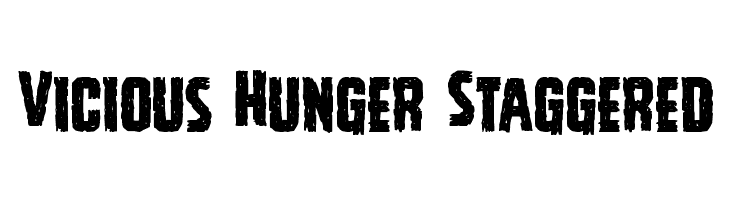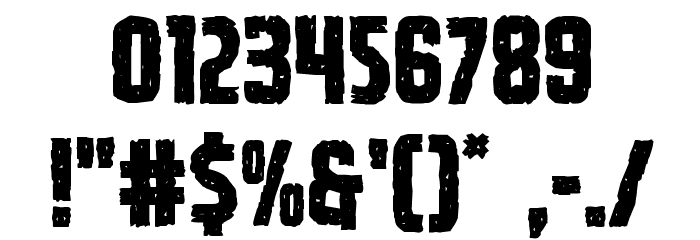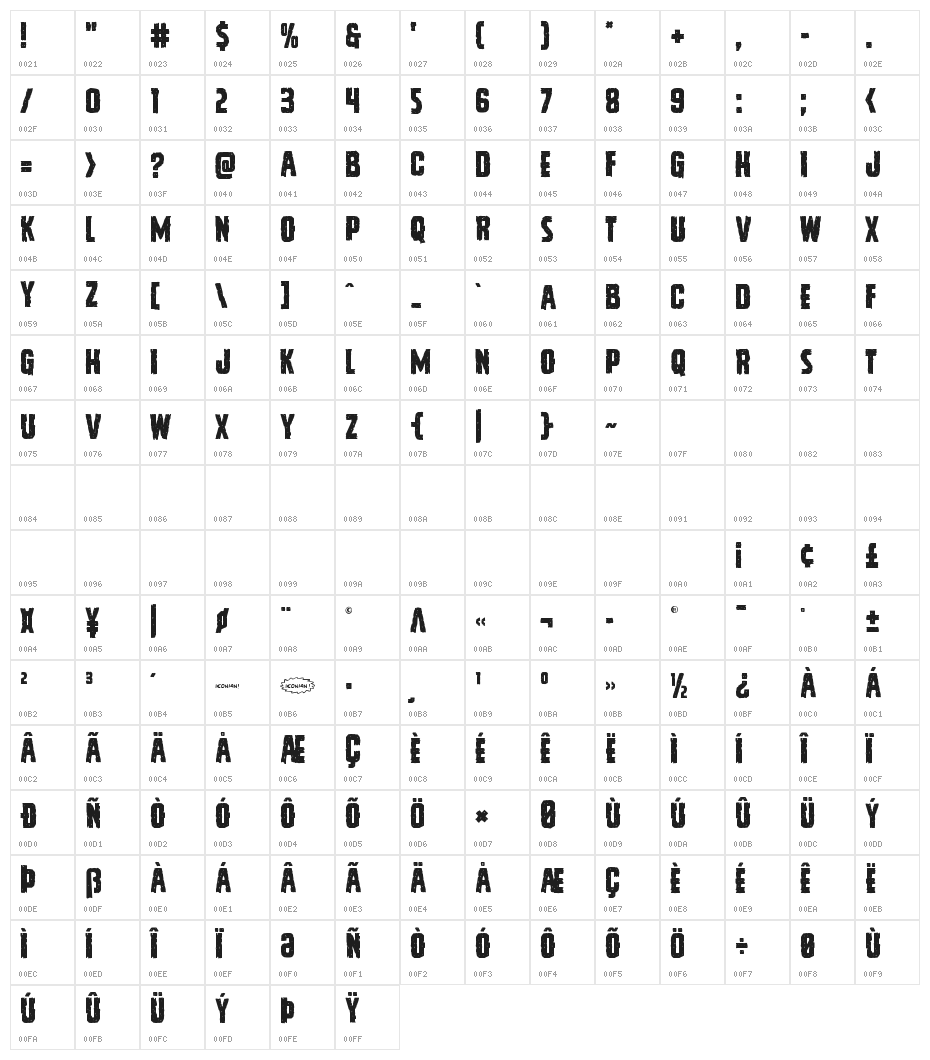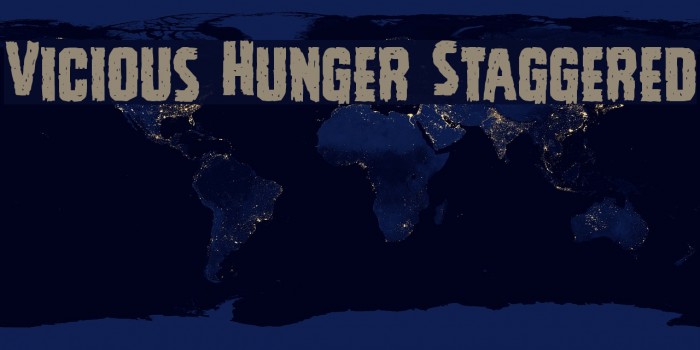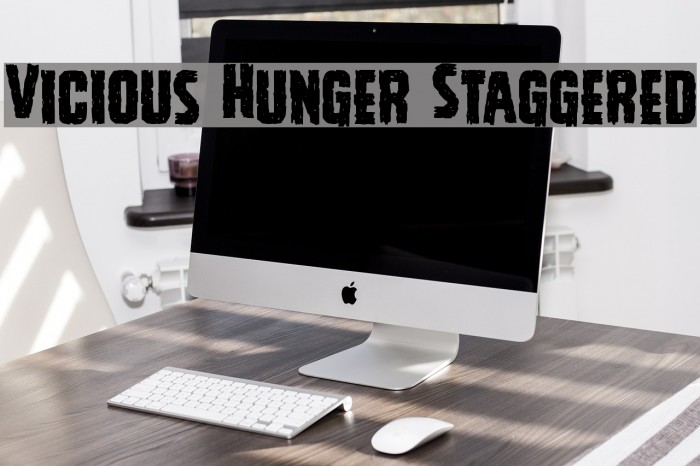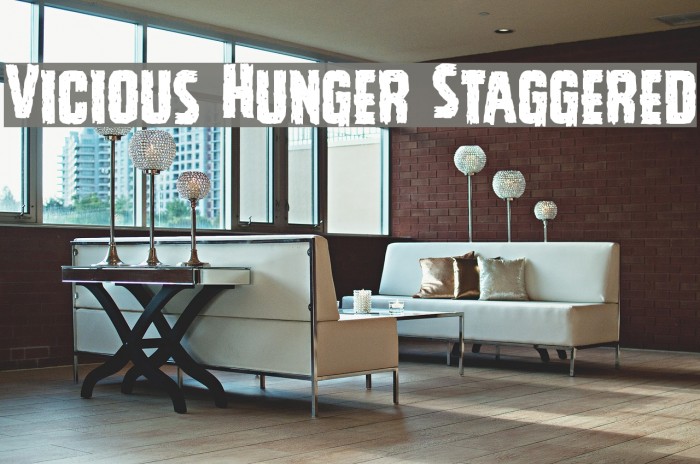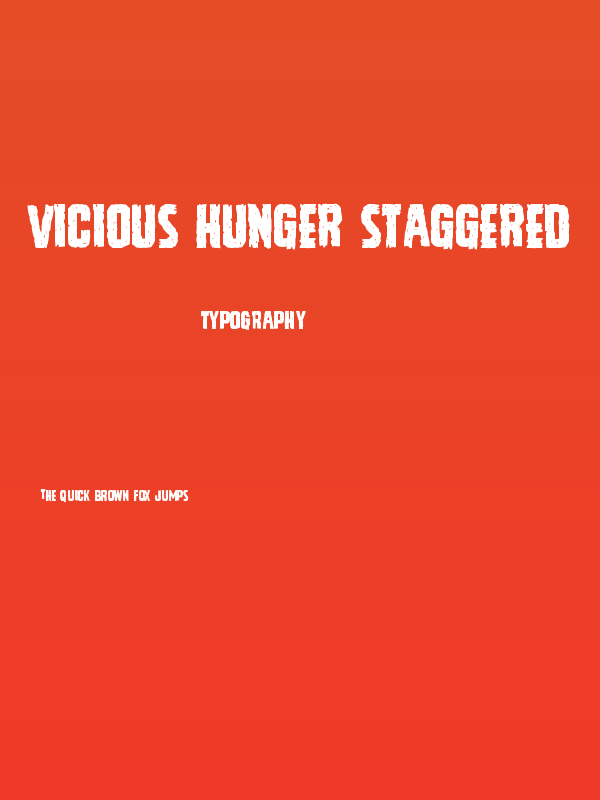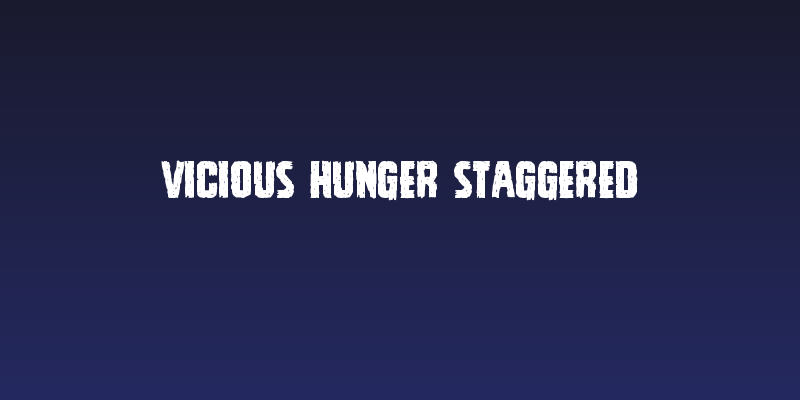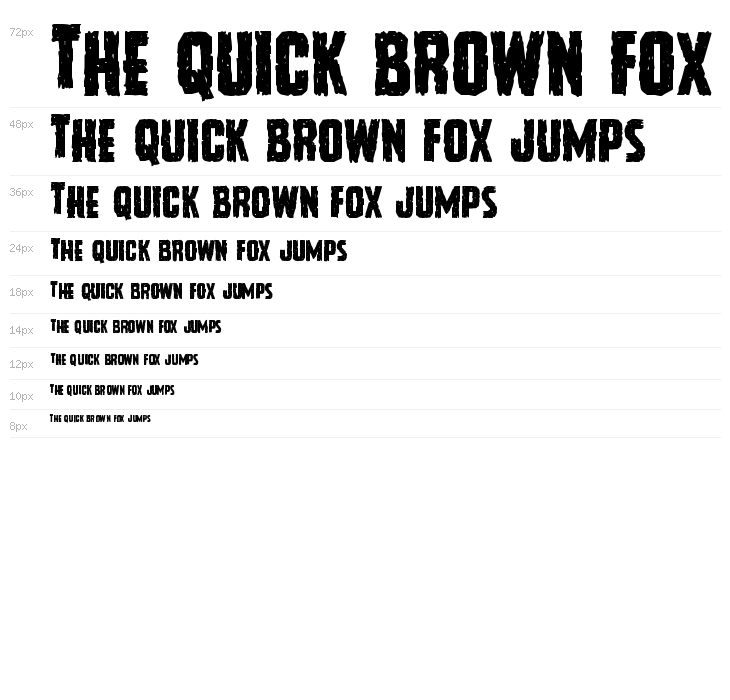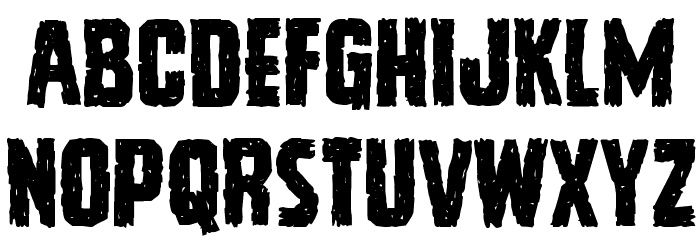
Vicious Hunger Staggered Font
Vicious Hunger Staggered Description
This font features a bold and rugged design, characterized by its distressed and textured appearance. The letters have a rough, hand-drawn quality, giving them a raw and edgy feel. The uppercase and lowercase letters maintain a consistent style, with thick strokes and uneven edges that suggest a sense of urgency and intensity. The numbers and special characters follow the same aesthetic, making the font suitable for creating impactful and attention-grabbing designs. Its unique style is perfect for projects that require a gritty and rebellious look.
| Proposed Projects | Ideal for album covers, posters, branding for extreme sports, or any project needing a gritty, rebellious aesthetic. |